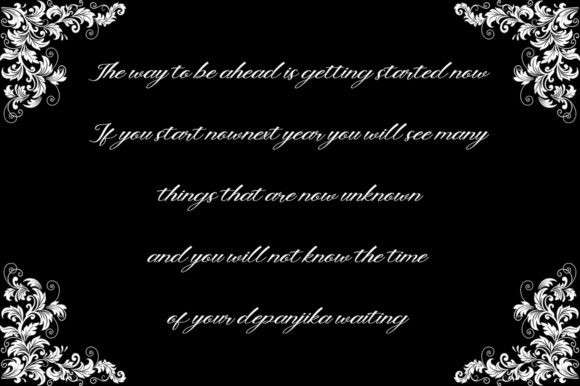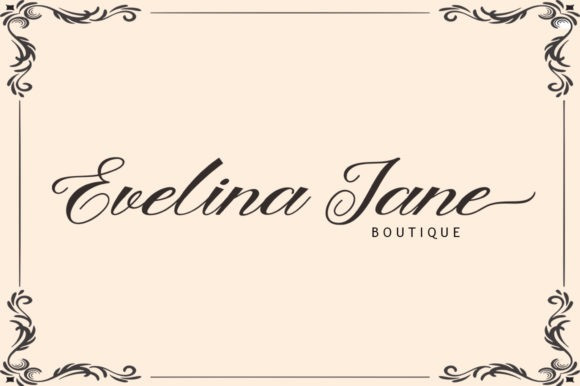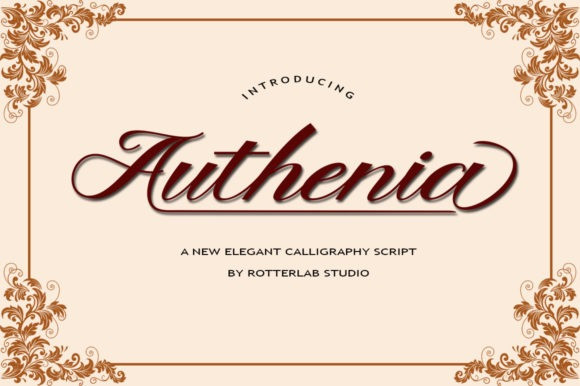
Authenia Font
The Authenia Script Font is a high quality script font. It has a vintage touch and is very easy to read. The classic style is perfect to be applied in various formal forms such as invitations, labels, menus, logos, fashion, make up, stationery, letterpress, romantic novels, books, and much more!